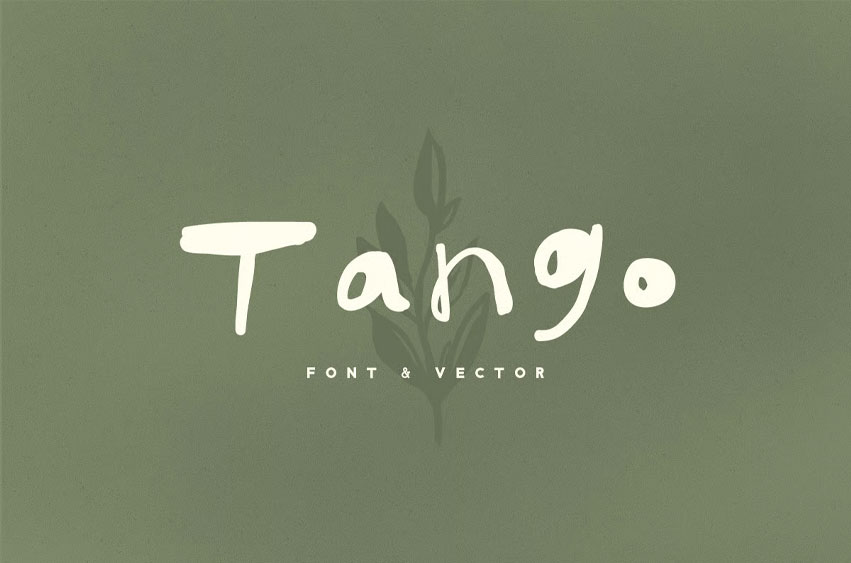
Tango Font is a modern, fun typeface where each letter has been carefully crafted to enhance the beauty of your text.
With its contemporary and playful style, this font is perfect for a variety of projects, such as quotes, blog headers, posters, weddings, branding, logos, fashion, apparel, letters, invitations, stationery, and more.